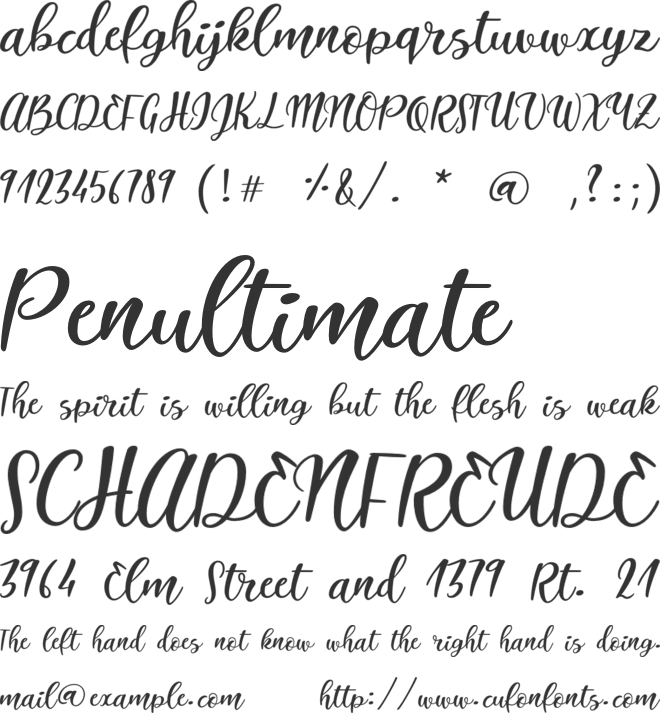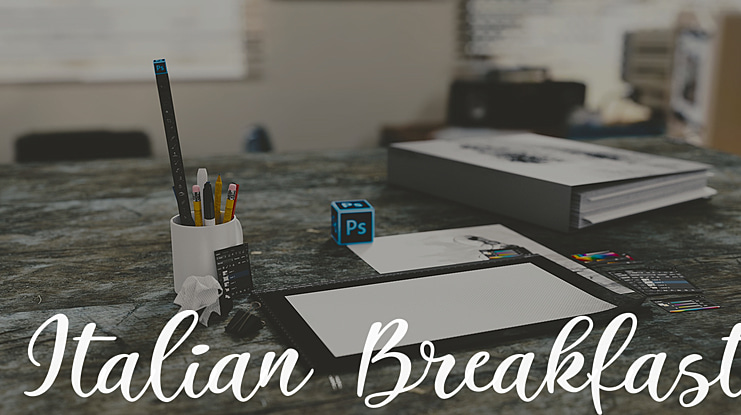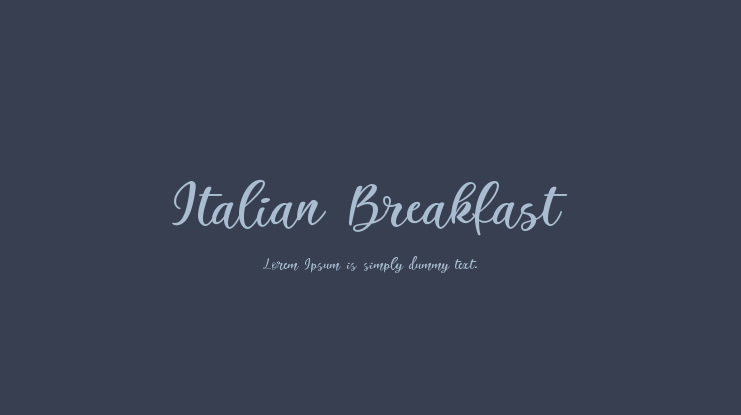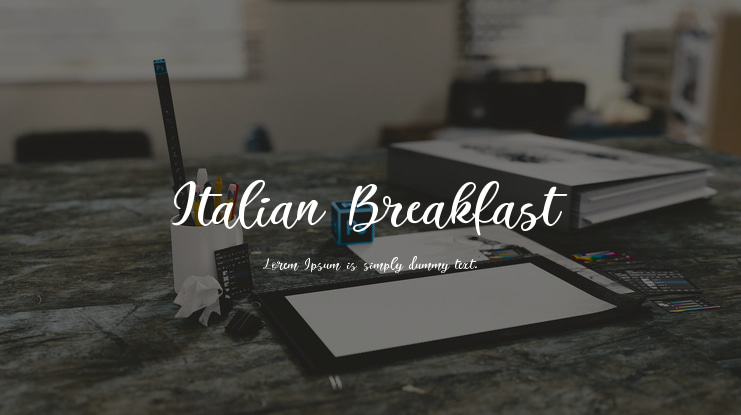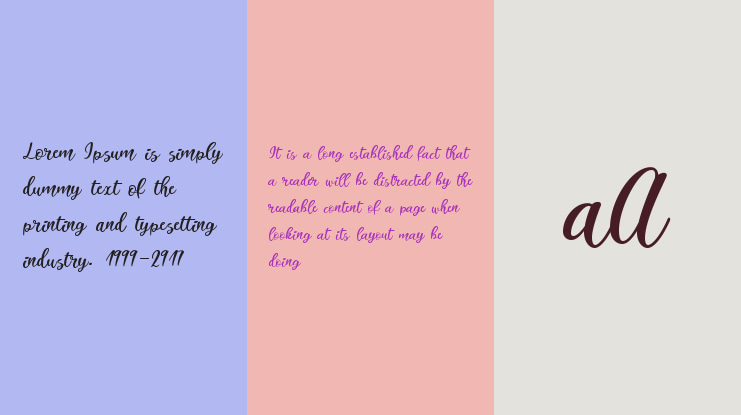
Italian Breakfast Font
A handwritten, fun and happy modern calligraphy script font with carefully crafted, clean vectors. You can create beautiful hand-made typography with its bouncy, organic flow. Italian Breakfast is perfect for all your creative projects wether it be
* indie logos, * printed quotes, * invitations, * greeting cards, * Instagram posts, * products, packaging, * blog headers etc.